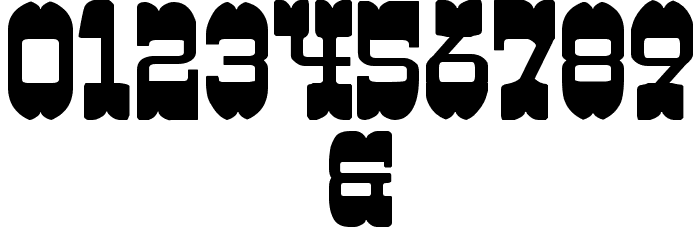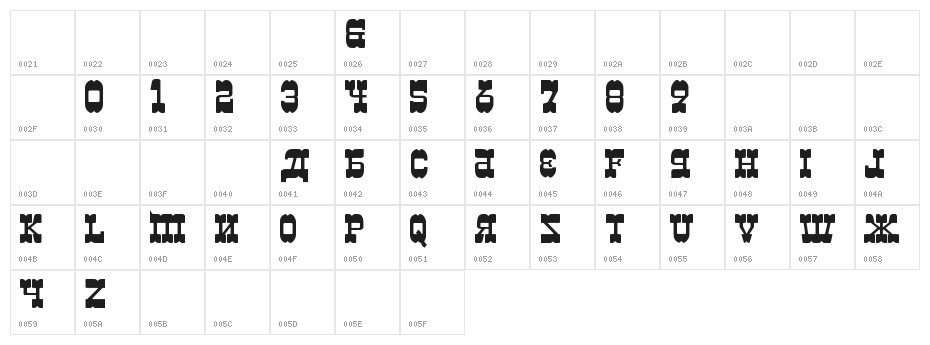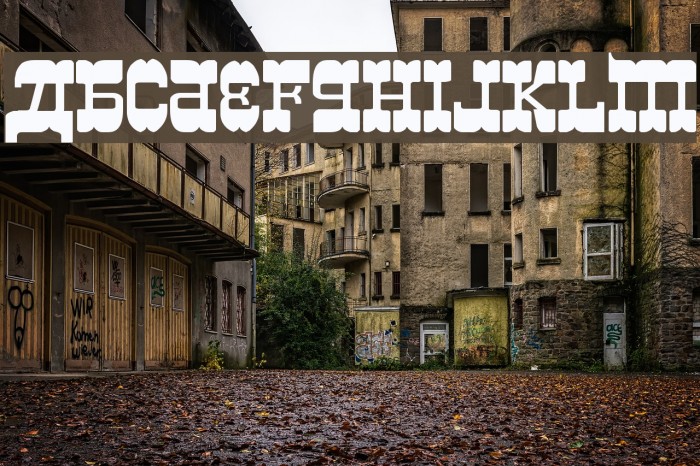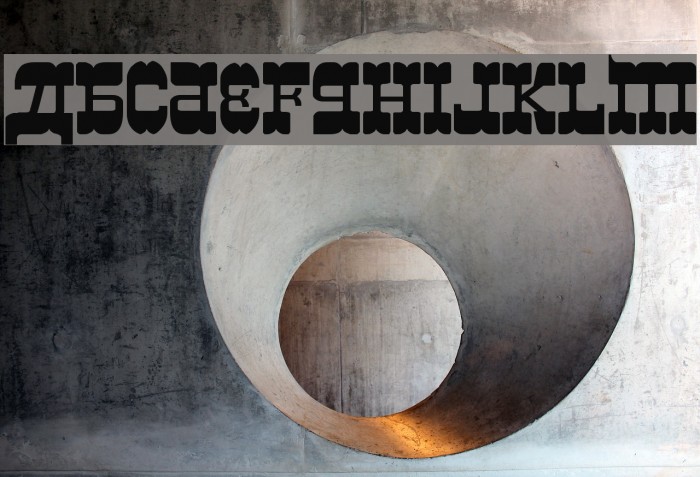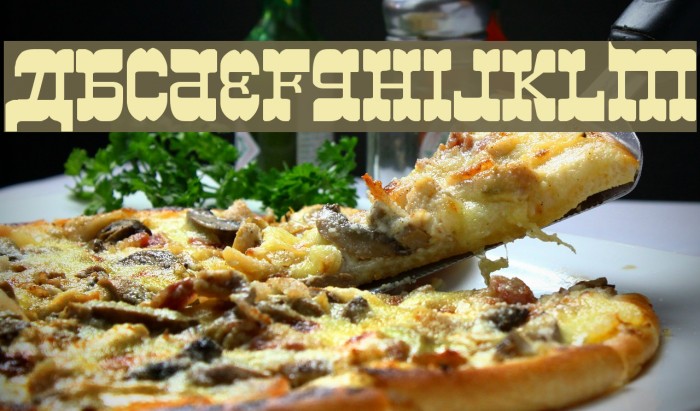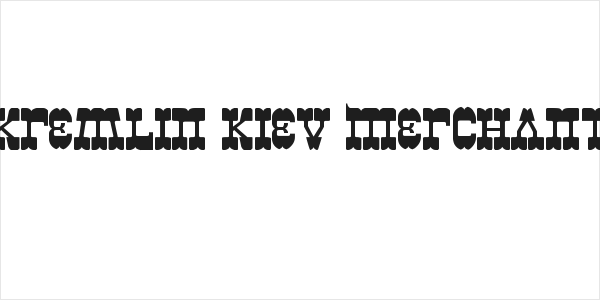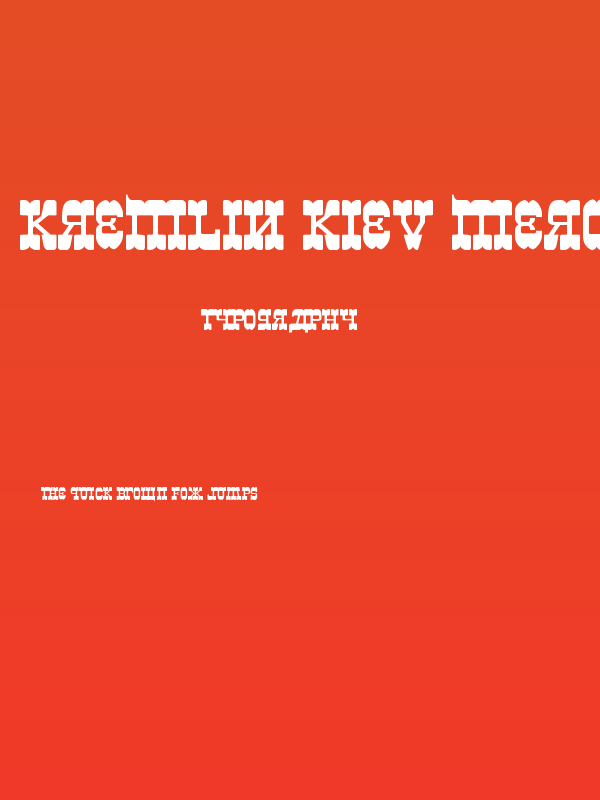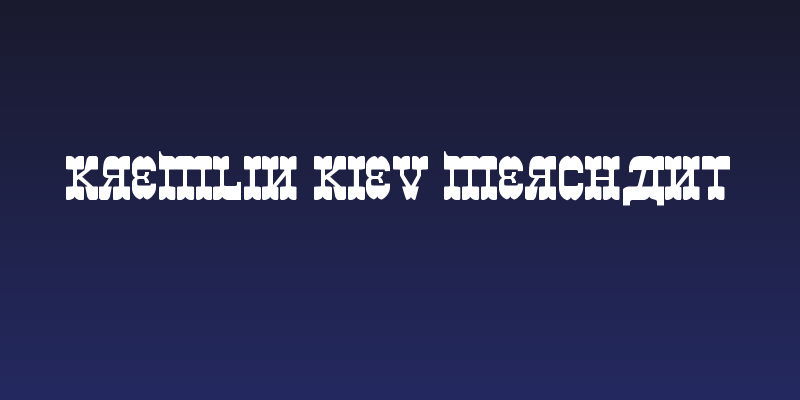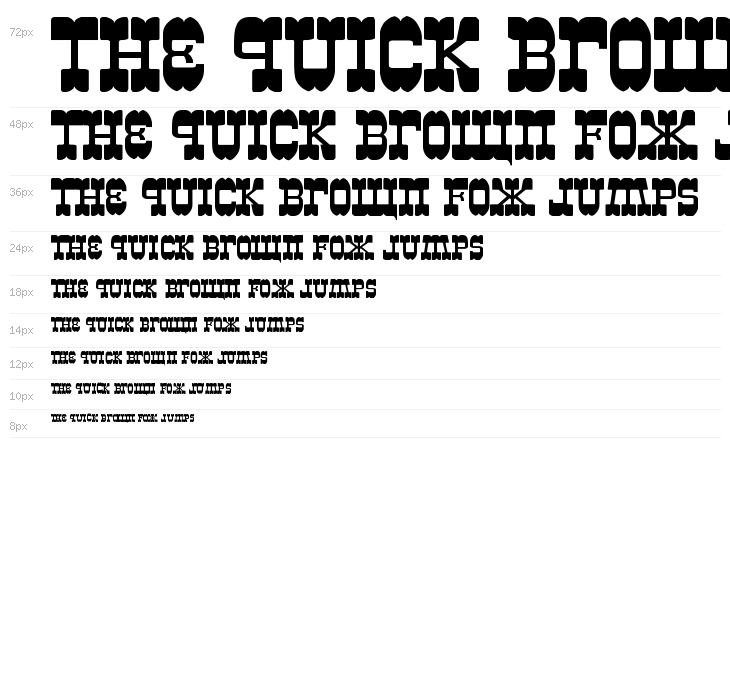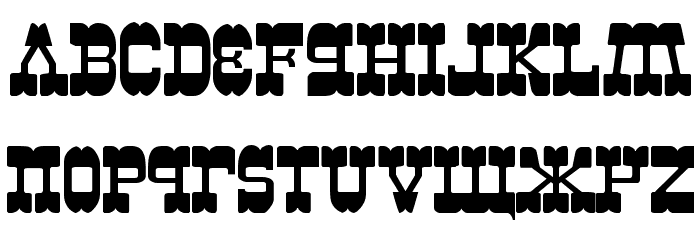
Kremlin Kiev Merchant Font
Kremlin Kiev Merchant Description
This font features a bold, decorative style with a strong presence. The characters are heavily stylized with thick strokes and unique, intricate detailing that gives them a distinctive, almost architectural appearance. The uppercase letters are particularly striking, with angular and geometric elements that create a sense of solidity and strength. The numbers and special characters maintain this bold aesthetic, ensuring consistency across all glyphs. This font's design is reminiscent of historical or cultural motifs, making it ideal for projects that require a touch of tradition or heritage.